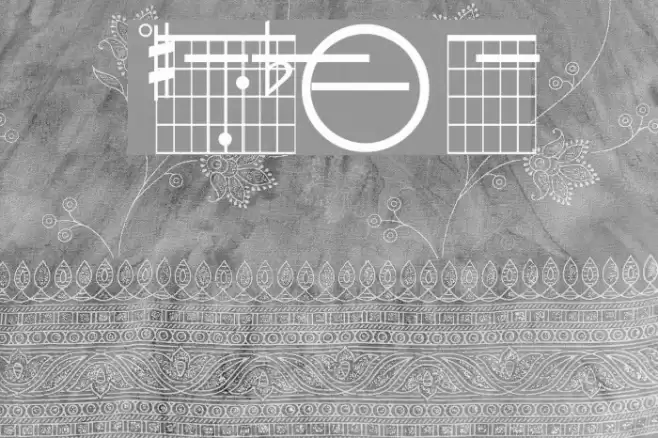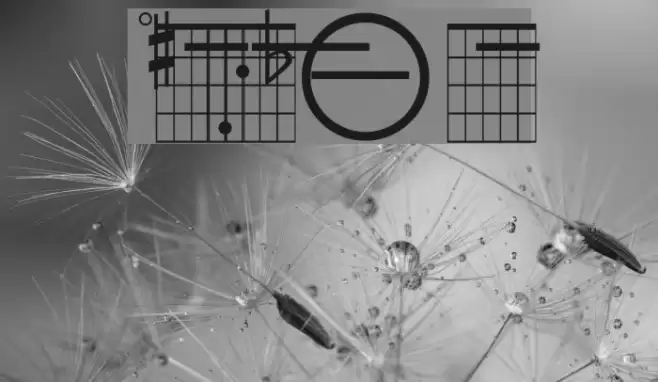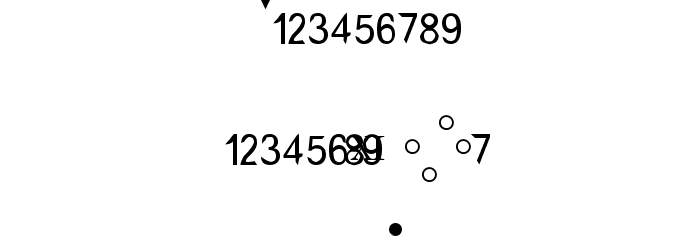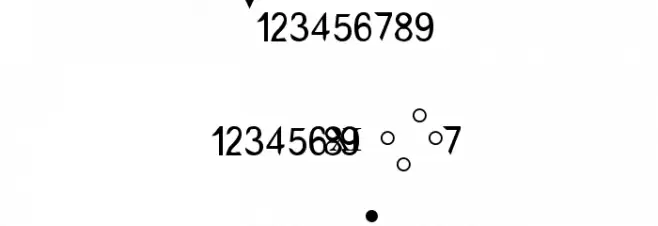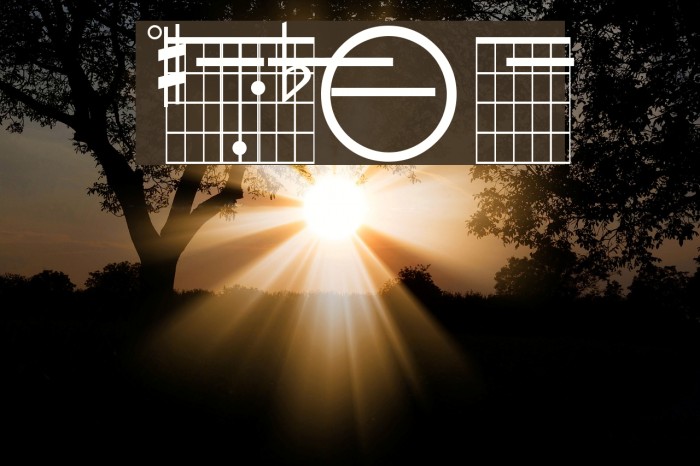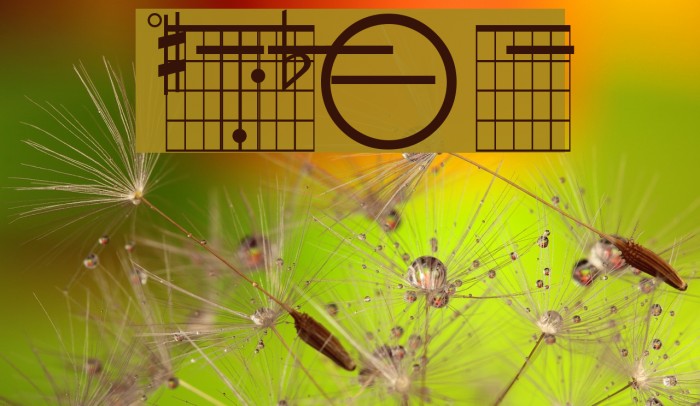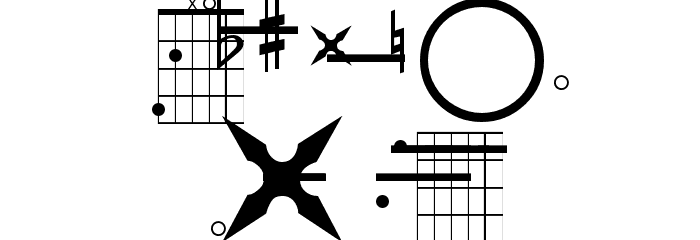
FarHat BC Regular Font
FarHat BC Regular Description
This image contains a collection of musical notation symbols, chord diagrams, and abstract shapes rather than a standard alphabet or numeral set. The elements are highly decorative and do not represent a typical font with readable characters.
Not a valid font; contains musical and abstract symbols from Uncategorized fonts.
- Overall Style: Decorative, Abstract
- Use Case: Musical notation, graphic design elements